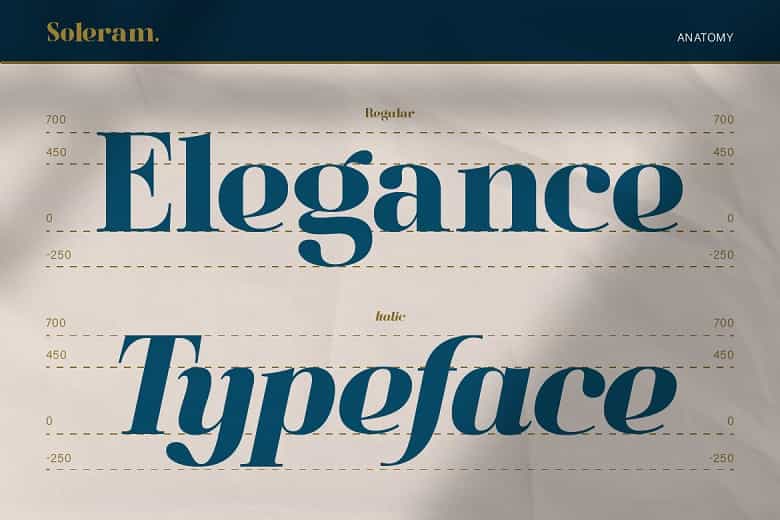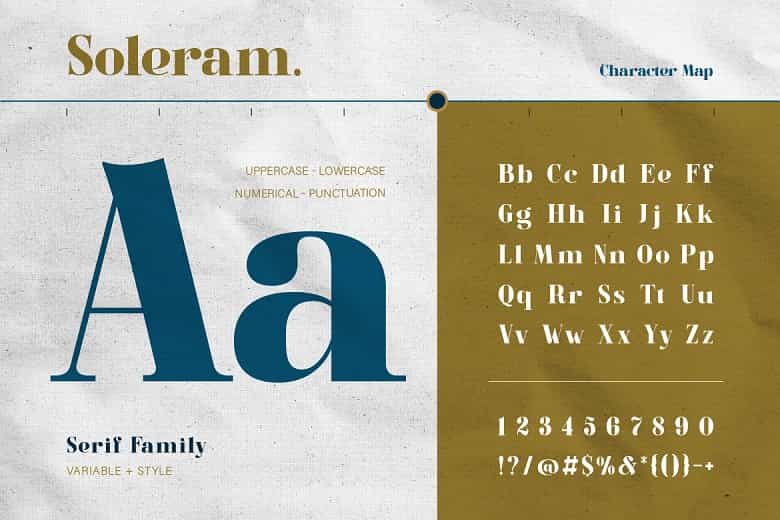
Soleram is an elegant serif font with 3 styles and 8 weight also has support for basic and European accent. Soleram is sans font with a touch of serif that will give a fresh look to any project you might be working on. Soleram have light, regular, medium, semi bold, bold, extra bold, black with regular, italic and oblique style in every weight.